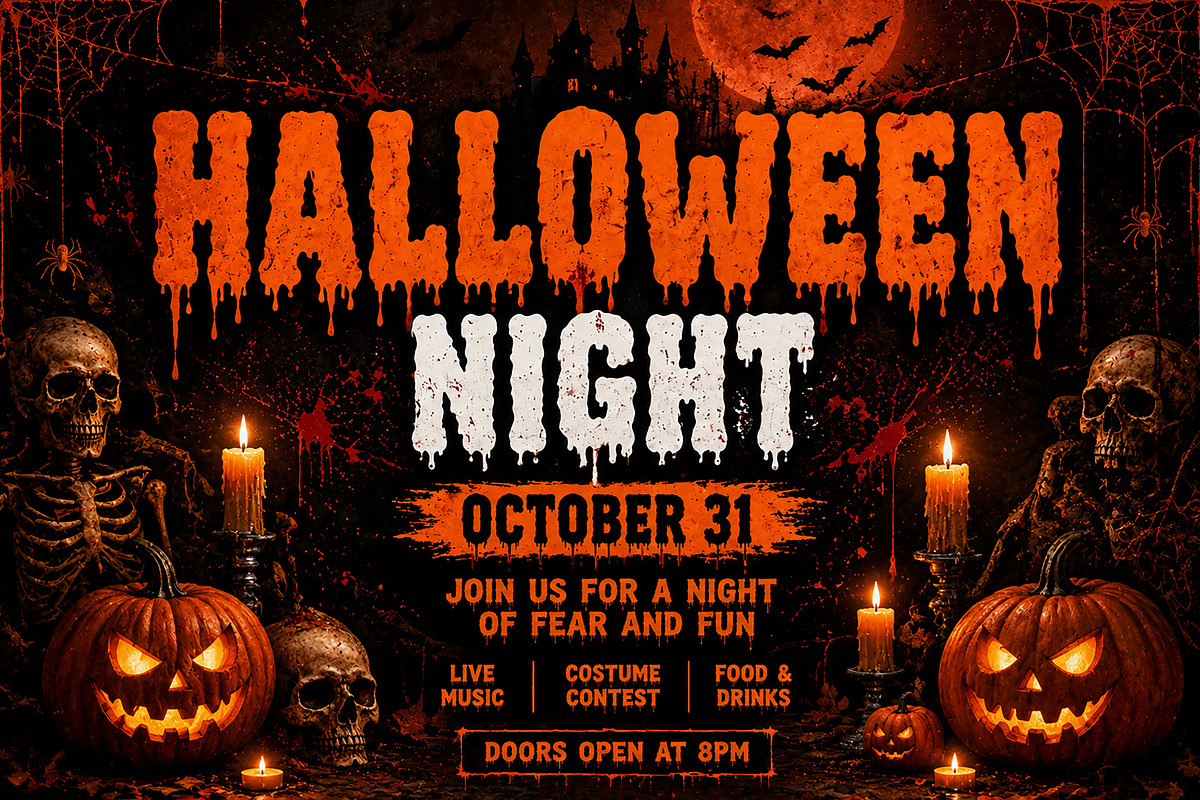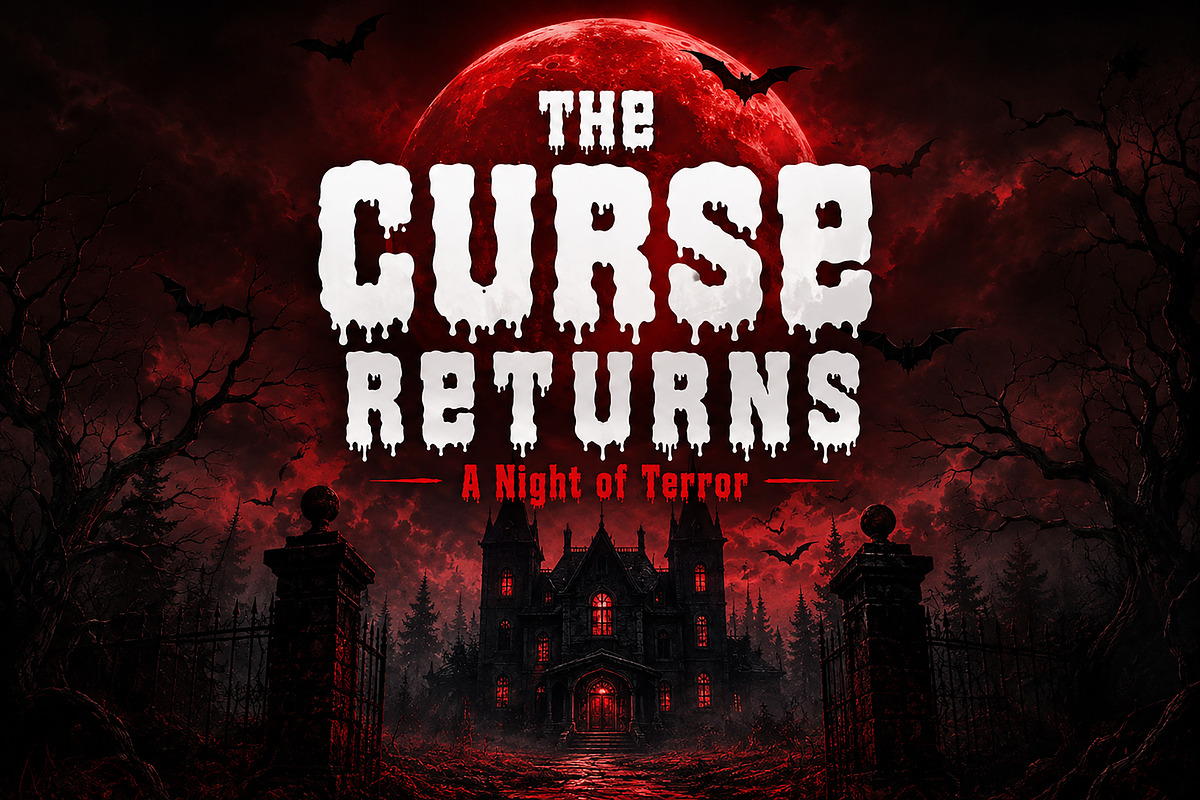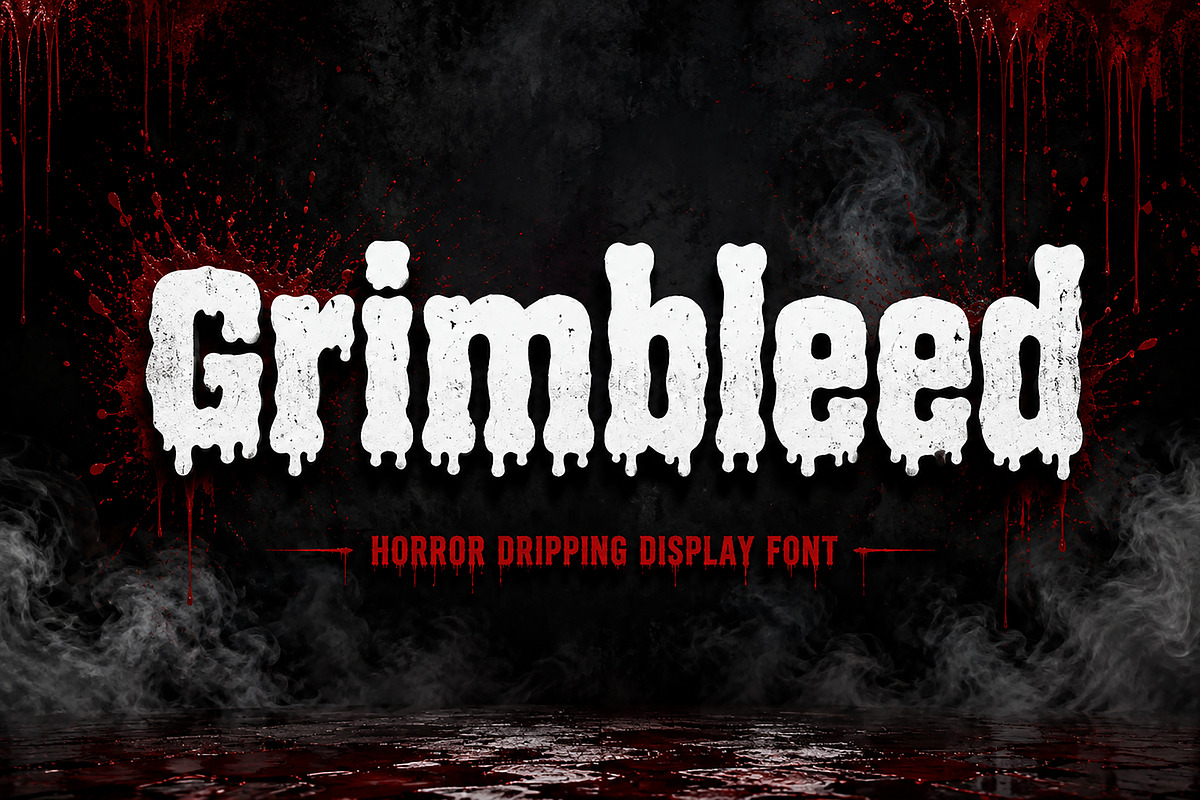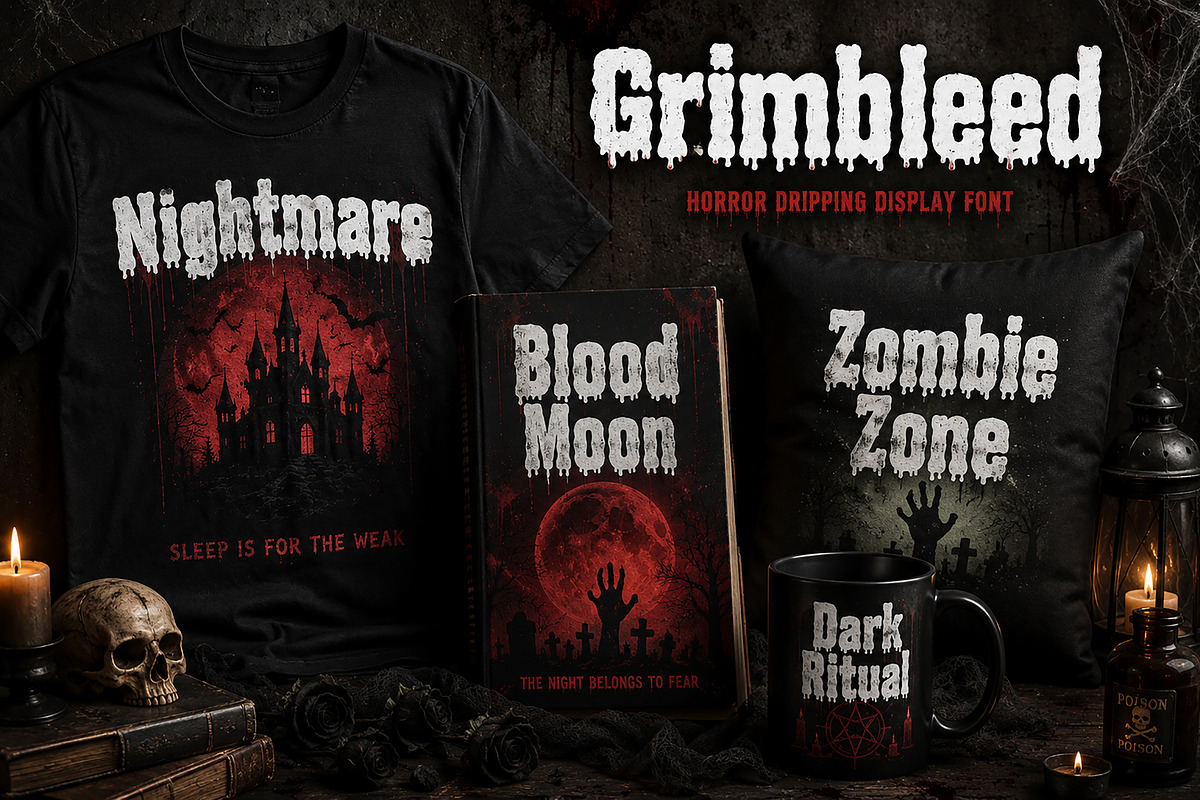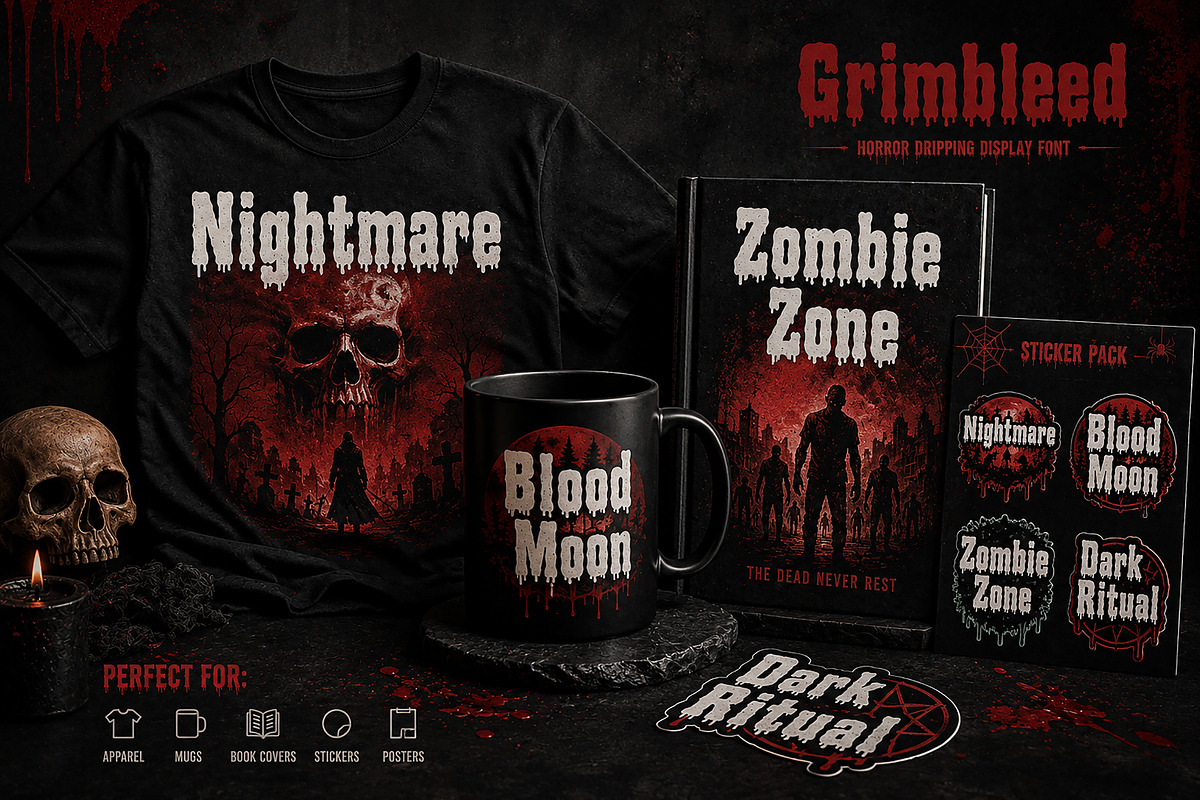
Grimbleed
Grimbleed – Horror Dripping Display Font
Grimbleed is a terrifying horror display font inspired by dripping blood, haunted houses, creepy forests, and classic Halloween nightmares. With its bold, melting letterforms and sinister personality, Grimbleed is designed to instantly create a dark and chilling atmosphere in any project.
Perfect for horror movie posters, Halloween event flyers, spooky branding, book covers, game titles, YouTube thumbnails, merchandise, packaging, invitations, stickers, and all kinds of frightening creative designs.
Whether you're creating a haunted promotion, a zombie apocalypse poster, or a gothic-themed project, Grimbleed delivers the perfect balance of horror, mystery, and visual impact.
Horror Movie Posters
Halloween Party Flyers
Haunted House Promotions
Video Game Titles
YouTube Thumbnails
Merchandise Design
T-Shirts
Stickers
Gothic Branding
Spooky Invitations
Event Promotions
Create fear, mystery, and unforgettable horror-themed designs with Grimbleed.